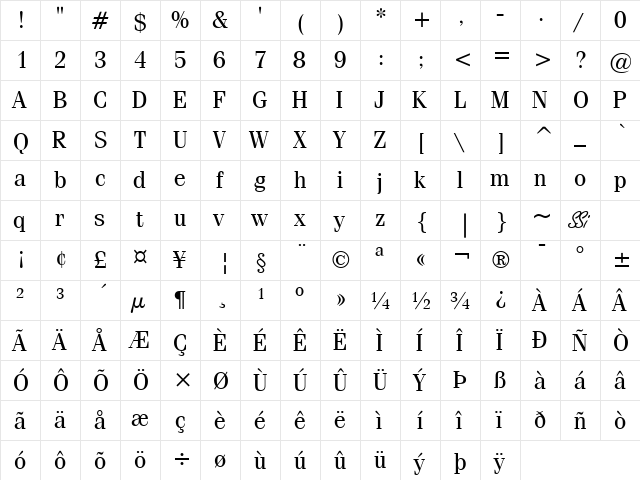
Compendium SSi Regular
Design Context for Compendium SSi Typeface
Compendium SSi is a composed and adaptable typeface that performs quietly and consistently across a wide range of design contexts.